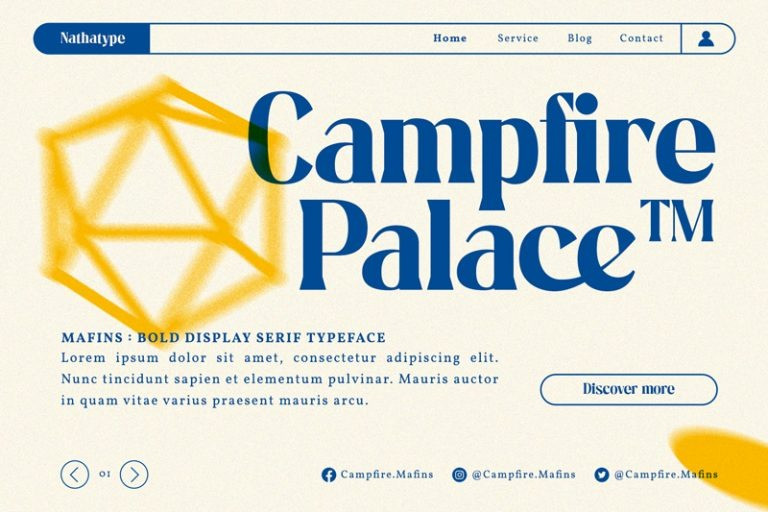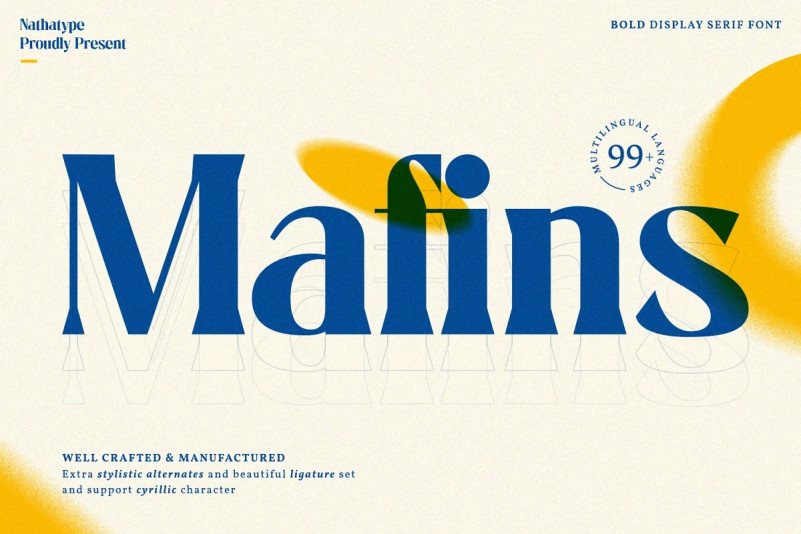
Mafins Font
Mafins Serif Font is a combination font of thick display and serif fonts which is simply designed in formal, modern, elegant impressions like other serif fonts. The differences between the thick and thin lines on each character is dramatic and the letters’ edges have small hooks for a legibility reason. Due to the great legibility, you can use this font for any text sizes. Make your every design perfect with Mafins font to create the best impressions on your designs.